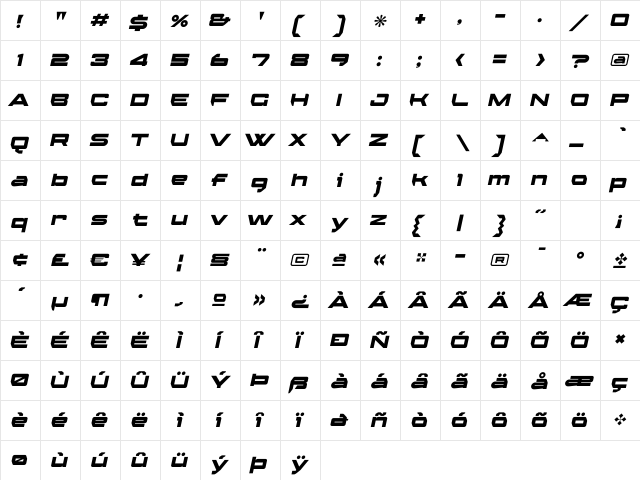
AmbexHeavy Oblique Regular
Design Context for AmbexHeavy Oblique Typeface
AmbexHeavy Oblique is a composed and adaptable typeface that performs quietly and consistently across a wide range of design contexts. The slanted form adds forward momentum and visual energy.